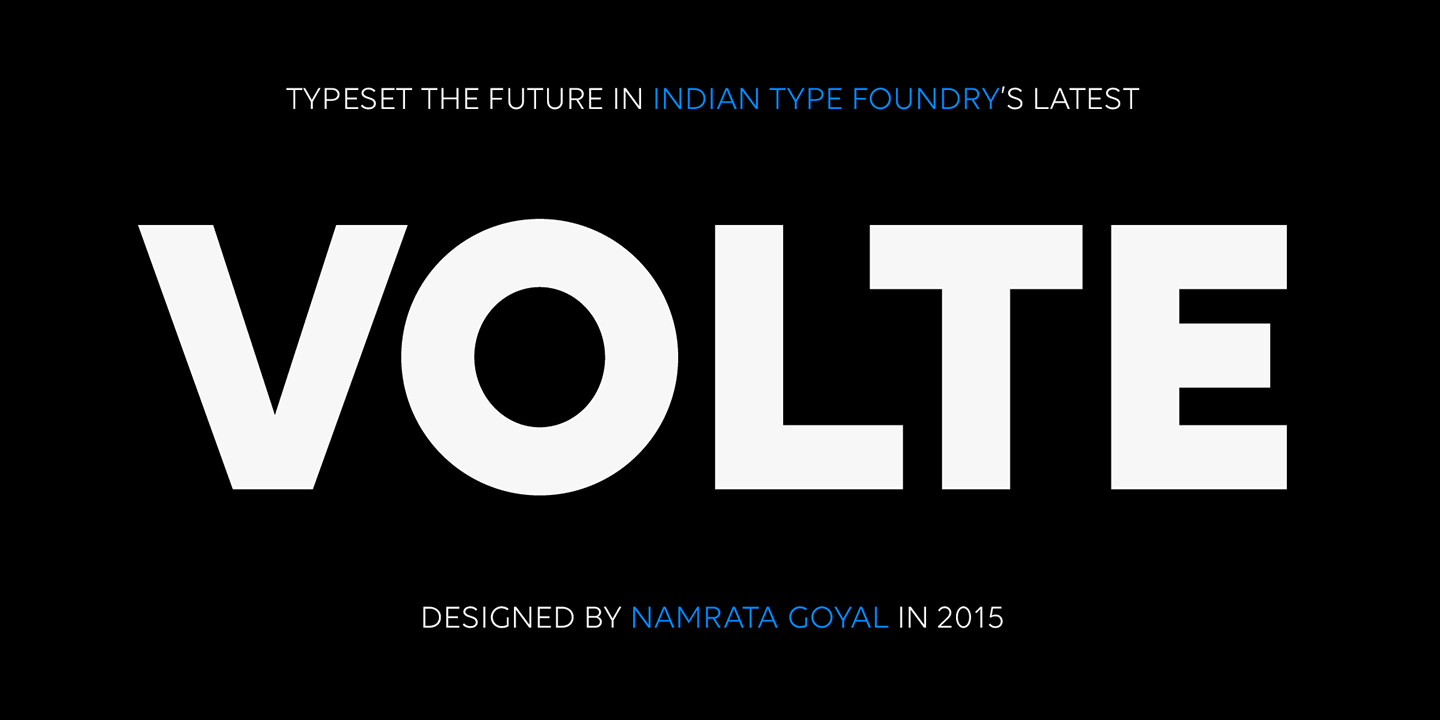
Volte Font is perfect for modern branding, tech startups, digital interfaces, contemporary logos, minimalist packaging, architectural signage, and cutting-edge web design. This progressive typeface delivers exceptional performance in both digital and print applications.
Volte Font is exciting because it represents the evolution of geometric sans-serif design with its innovative approach to letterform construction. Its unique character shapes and carefully balanced proportions create a distinctive visual identity that feels both futuristic and approachable.
The Volte Font family includes multiple weights ranging from Light to Bold, along with corresponding italic styles. This comprehensive collection provides designers with extensive typographic flexibility for creating dynamic and cohesive design systems.
Volte Font Free Download offers designers access to a revolutionary typeface that pushes the boundaries of contemporary typography. This modern sans-serif font combines geometric precision with subtle humanist influences, resulting in letterforms that are both technically sophisticated and visually engaging. The font features unique character details and optimized spacing that ensure excellent readability across all sizes and applications. Its distinctive personality makes it ideal for brands seeking to establish a forward-thinking and innovative visual identity. Volte Font maintains consistent performance in digital environments while delivering striking results in print applications. The typeface's clean lines and balanced proportions create a sense of technical excellence and modern sophistication, making it an essential tool for designers working on projects that require both visual impact and contemporary relevance.